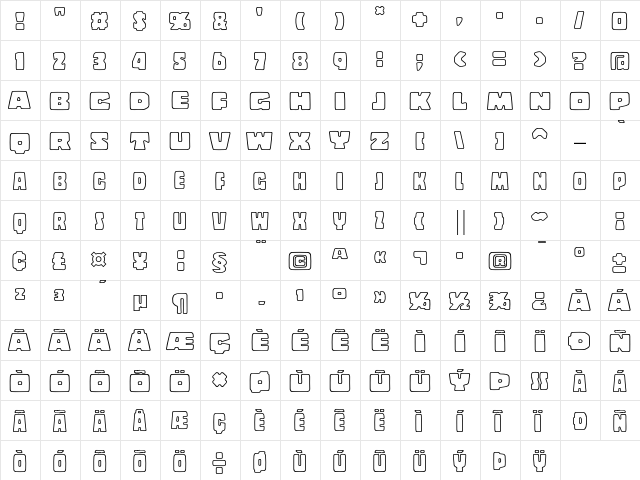
Copal Std Outline Font Preview
Copal Std Outline
| Designer | David Lemon |
Design Context for Copal Std Typeface
Copal Std is built around its visual character rather than neutral utility — its distinctive forms are designed to make an impression at display sizes.
Font Pairing: Pair with a clean neutral sans-serif for body copy to let Copal Std's character lead without overwhelming the composition.
Pro Tip: Use Copal Std exclusively at display sizes — it was designed to be seen, not read at length. Let a neutral companion handle body copy.